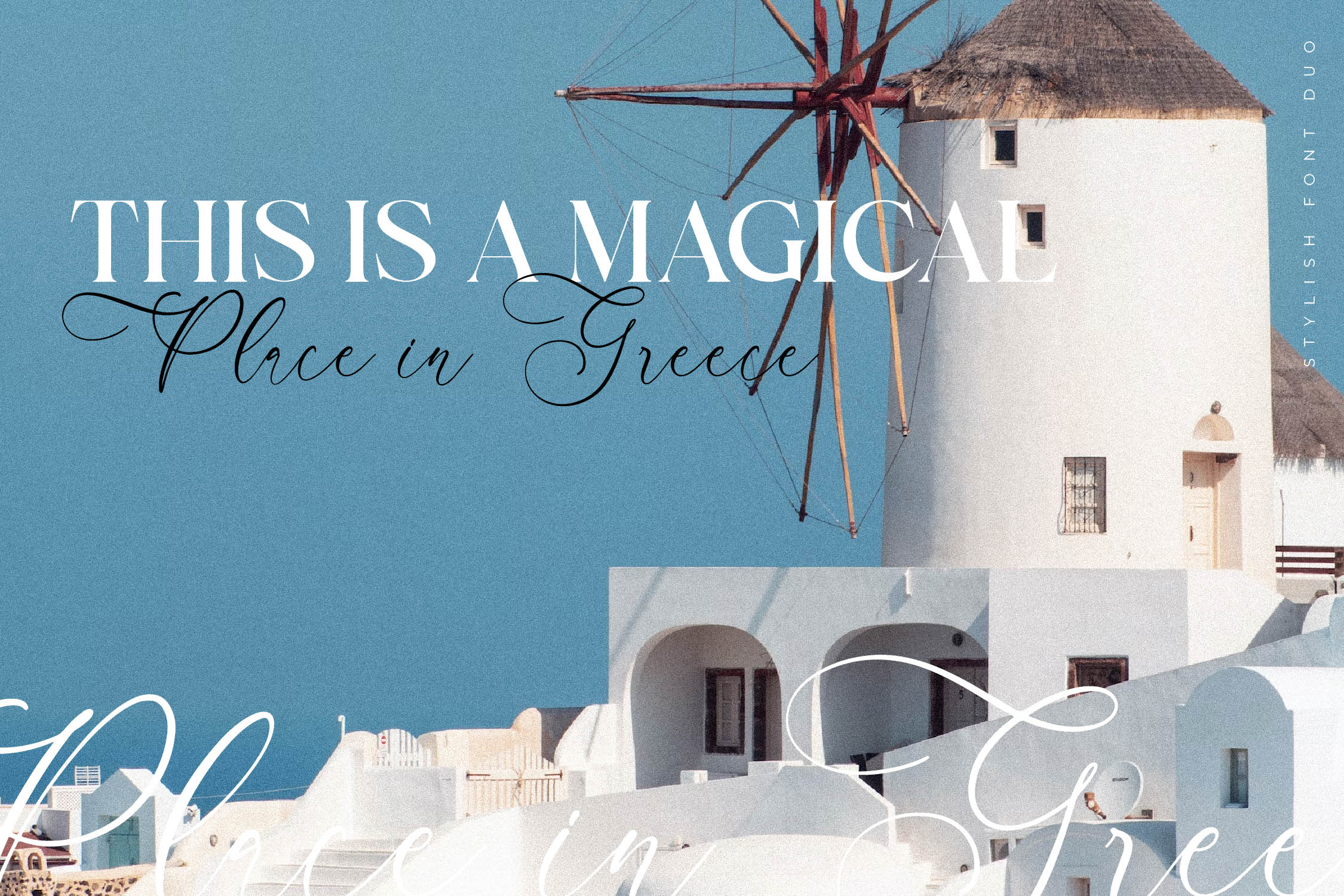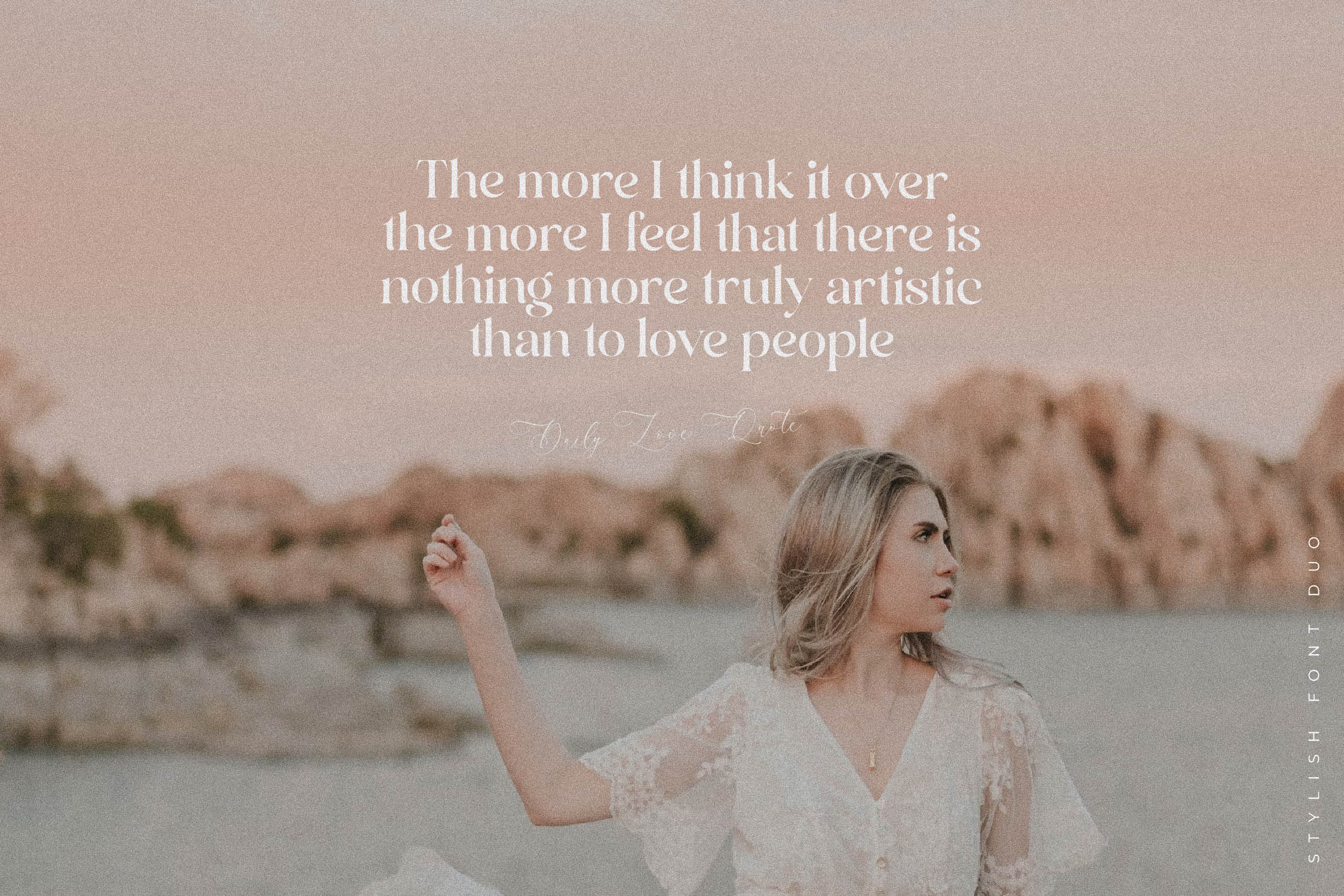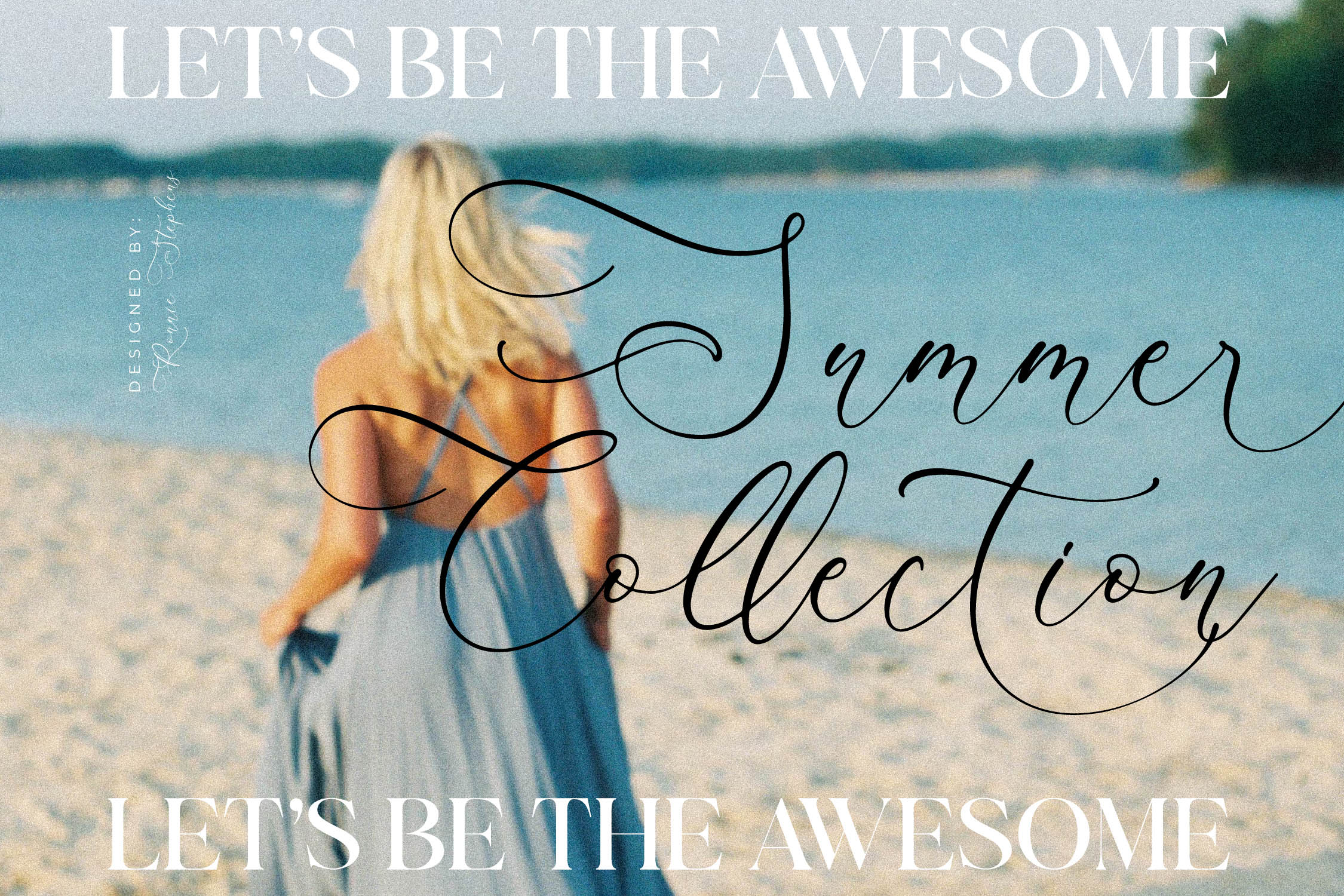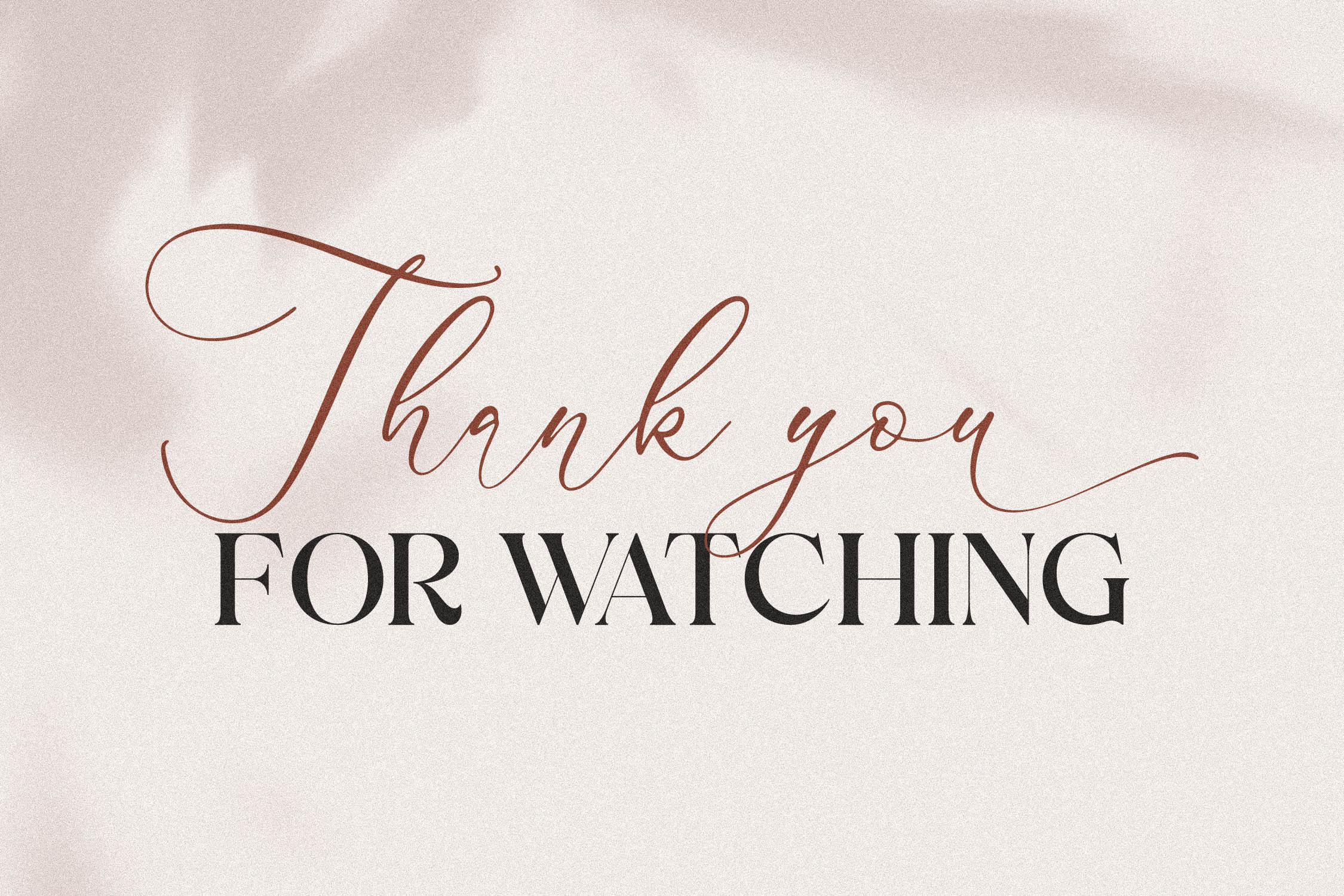
Andora Modern Font Duo
Andora Modern Font Duo is a serif and script typeface that has own unique style & modern look. This typeface is perfect for an elegant & luxury logo, book or movie title design, fashion brand, magazine, clothes, lettering, quotes, and so much more.